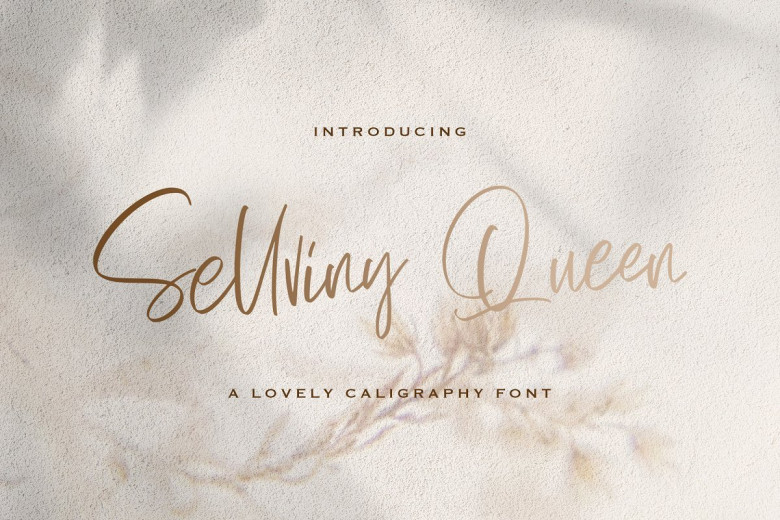
Sellviny Queen Handwritten Script Font
Introducing Sellviny Queen – Handwritten Script Font, Sellviny Queen feels equally charming and elegant. It looks stunning on wedding invitations, thank you cards, quotes, greeting cards, logos, business cards and every other design which needs a handwritten touch.